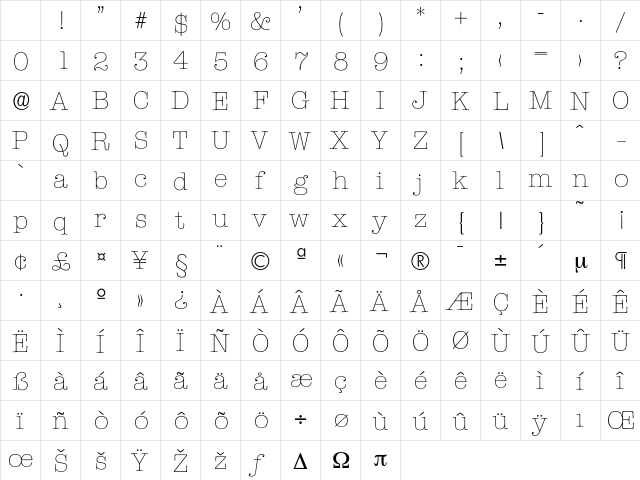
Complete Typewriter-Xlight Regular glyph index. Displaying only characters natively supported by Typewriter-Xlight Regular font.
Typewriter-Xlight uses fixed-width spacing throughout, giving it the structured, systematic character associated with coding environments and technical documentation. Its slender proportions lend an understated elegance to any composition.